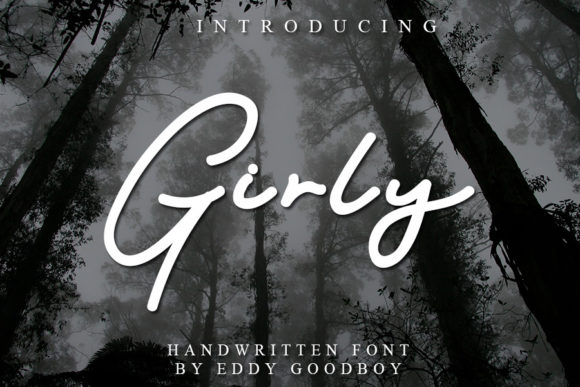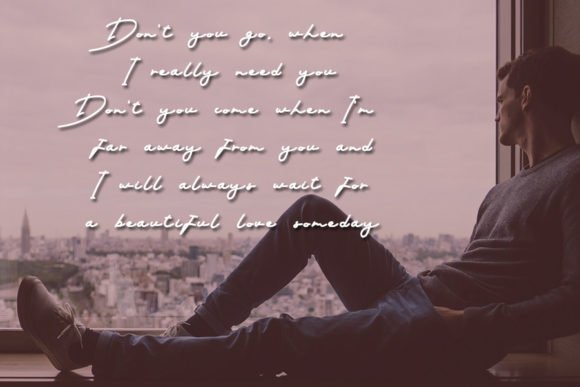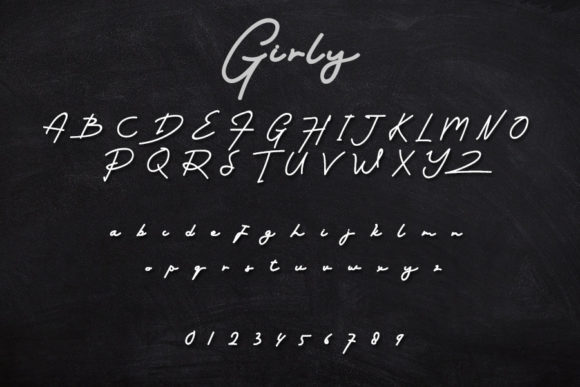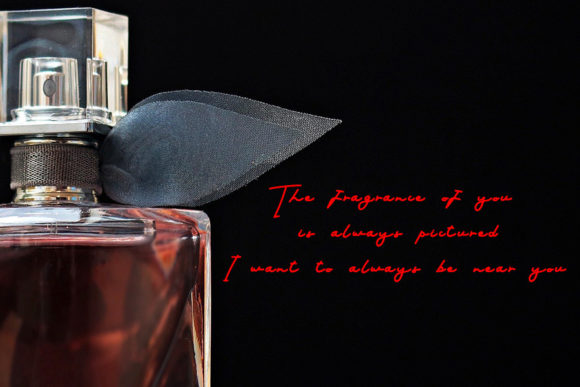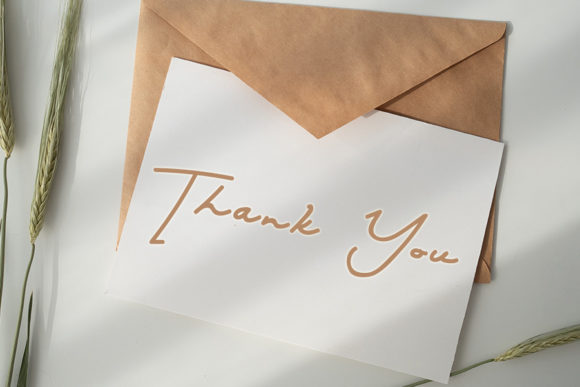
Girly Font
About Girly Font
Girly is a beautiful and attractive handwritten font that adds a touch of adventure and authenticity to your design ideas. With its charming style and eye-catching appeal, this font is ideal for creating designs that are both captivating and adventurous.
The beauty and attractiveness of Girly font make it visually appealing and attention-grabbing. Its elegant letterforms and stylish details contribute to a visually pleasing aesthetic. Whether you’re working on branding, invitations, social media graphics, or any other design project, Girly font enhances the overall visual appeal with its captivating and attractive demeanor.
Using Girly font allows you to infuse your design ideas with a sense of adventure and authenticity. Its handwritten appearance adds a personal and organic touch, making your designs feel genuine and appealing. This font brings a unique and adventurous feel, making your designs stand out and leaving a lasting impression on your audience.
The charm of Girly font lies in its ability to capture attention and evoke a sense of intrigue. Its beautiful and attractive nature creates a sense of curiosity and draws the viewer into your design. Whether used for headlines, logos, or other design elements, Girly font adds a touch of adventure and authenticity to your compositions.
Incorporating Girly into your design ideas empowers you to create visually captivating and adventurous visuals. Its beautiful and attractive handwritten font adds a sense of uniqueness and charm, enhancing the overall impact of your designs.
In summary, Girly is a beautiful and attractive handwritten font that adds an adventurous and authentic feel to your design ideas. Its elegant letterforms and stylish details create a visually pleasing and captivating aesthetic. Embrace the charm of Girly font and let it enhance your design ideas with its captivating and attractive presence, making them visually engaging and leaving a lasting impression.